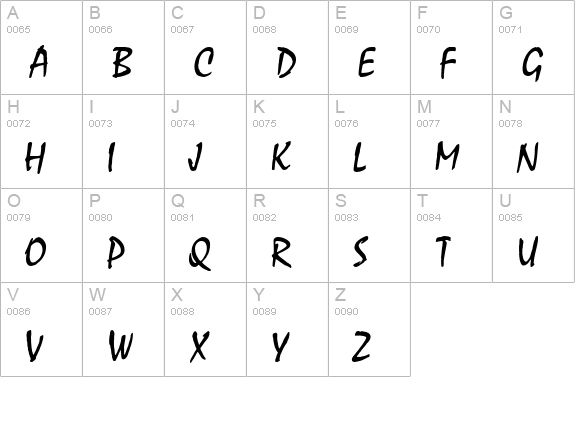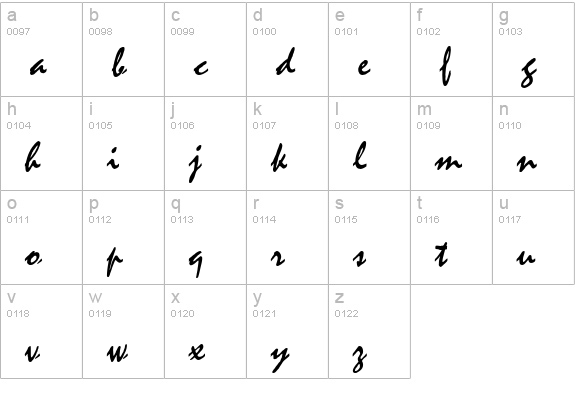
TR Mystical Plain Font Details
The TR Mystical Plain font is a captivating and enchanting typeface that exudes an aura of mystery and magic. Its elegant and intricate design features flowing lines and intricate details that make it perfect for adding a touch of mystique to any project. Whether you're working on a fantasy novel, a mystical-themed website, or a whimsical invitation, this font is sure to elevate your design to new heights. Best of all, the TR Mystical Plain font is free to download at FontsMarket.com. This means that you can easily incorporate this stunning typeface into your projects without breaking the bank. Don't miss out on the opportunity to add a dash of magic to your designs with the TR Mystical Plain font - download it for free today!